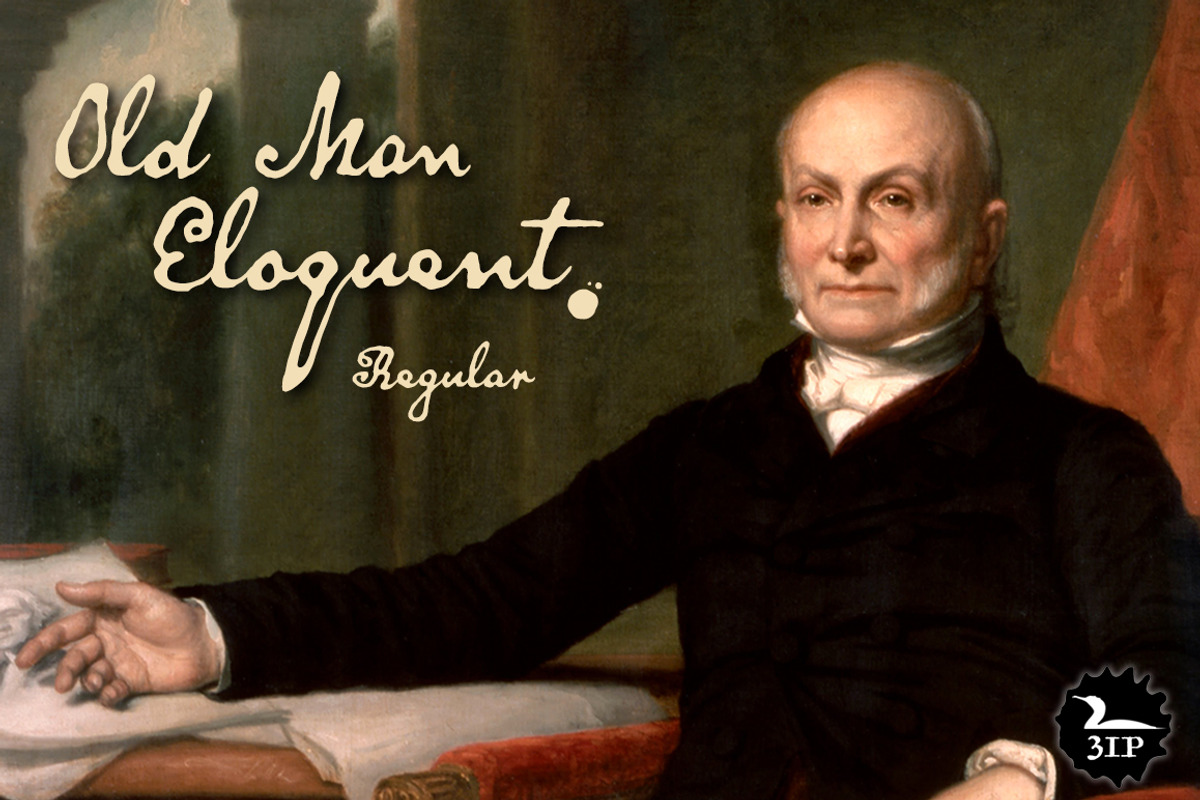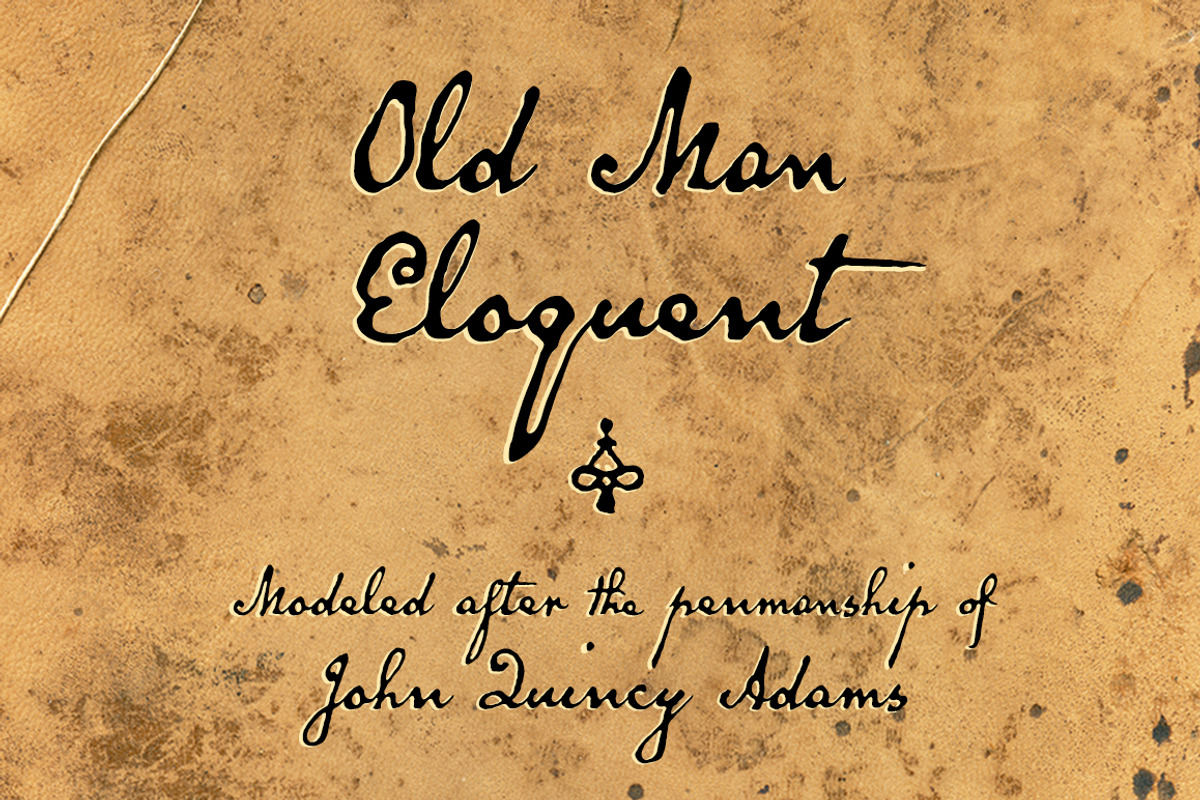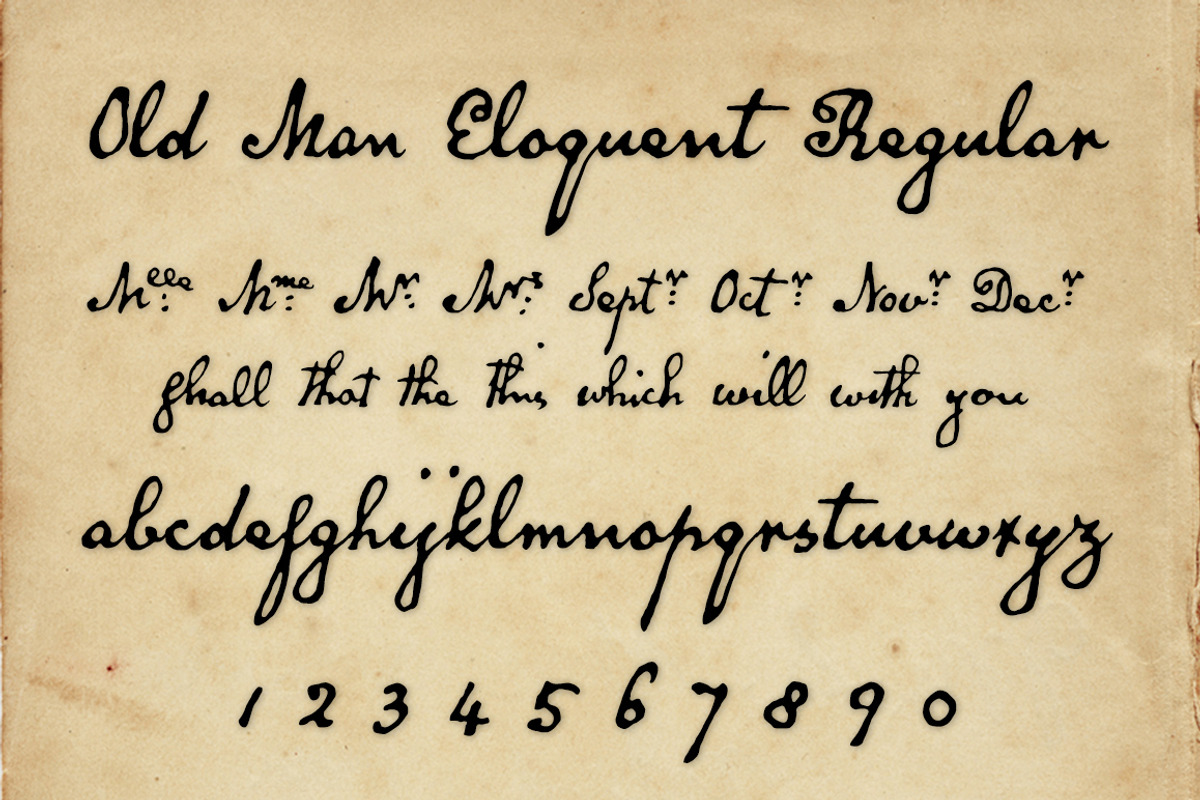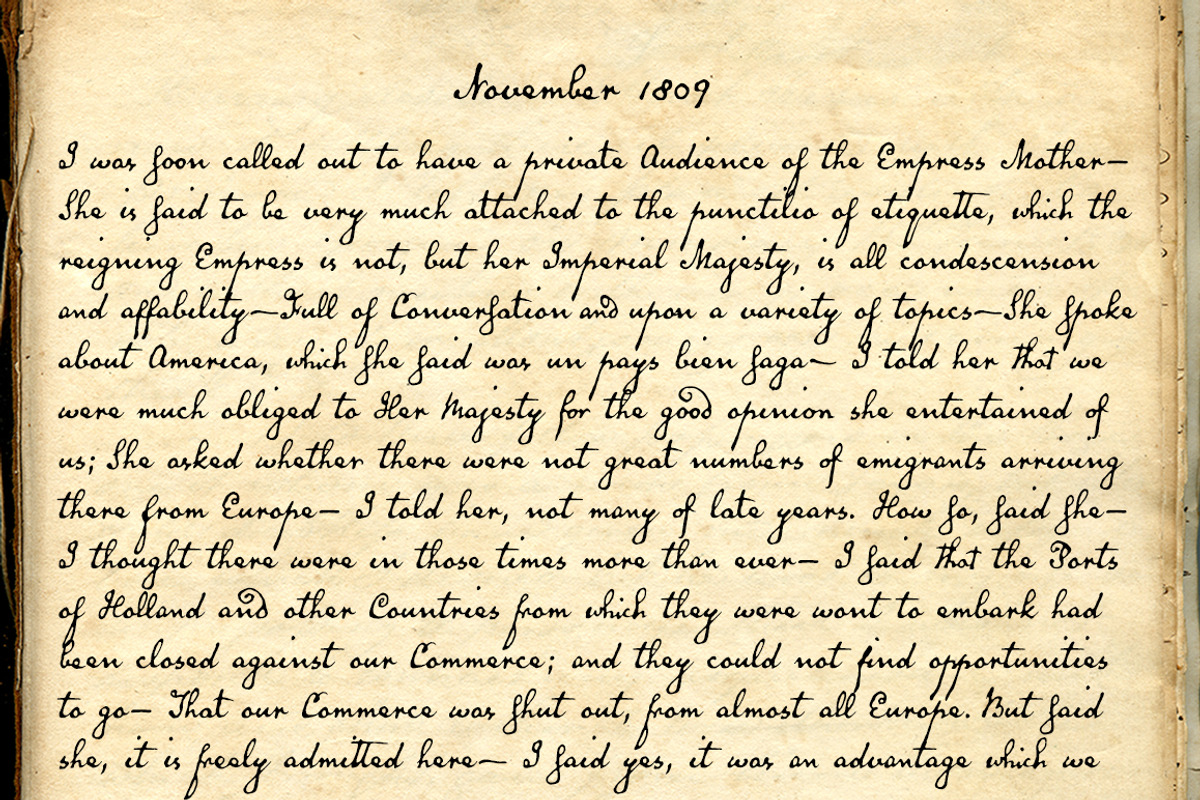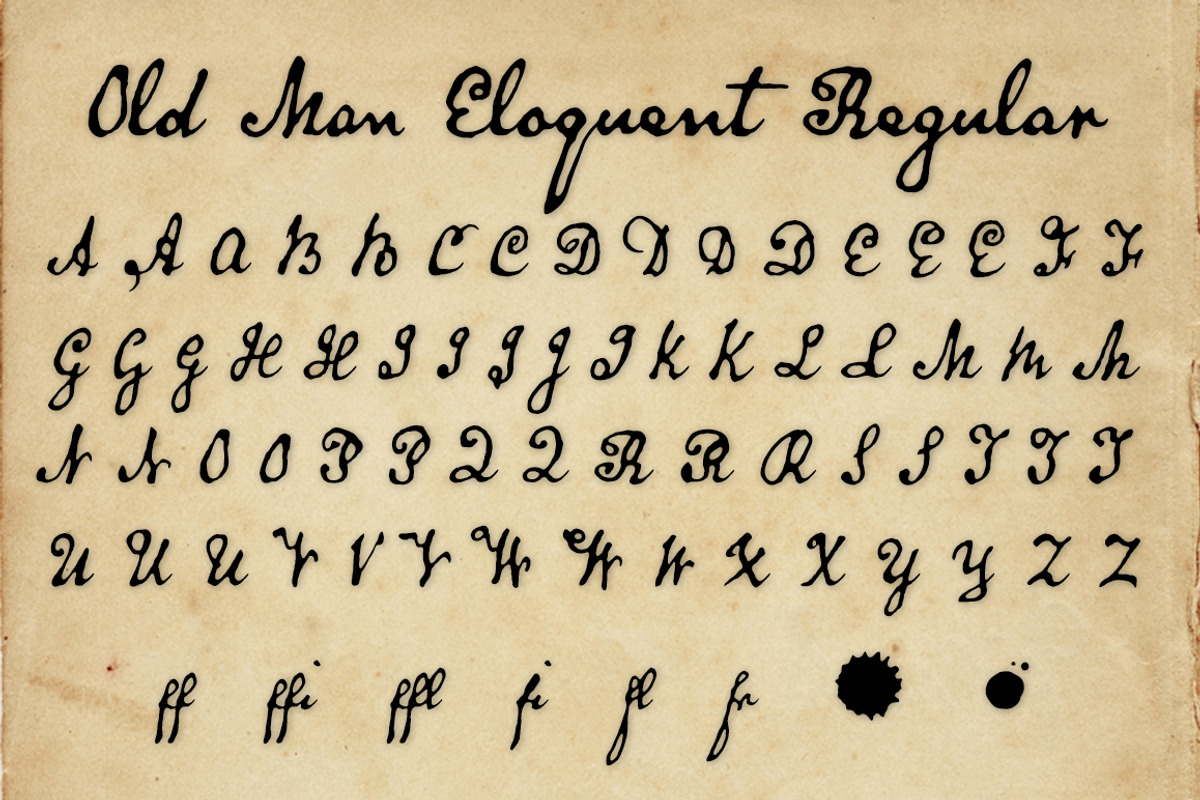
Old Man Eloquent Regular
Old Man Eloquent Regular is the standard of two weights in the Old Man Eloquent family, modeled after the penmanship of John Quincy Adams, sixth President of the United States. (Note: it was Adams's masterful speeches in Congress after his presidency that won him the moniker for which this font is named.) As source material, I reviewed pages of Adams's famous lifelong journal from about 1810, when he was Ambassador to Russia, but also consulted pages from later years. This font has nearly 800 glyphs, including alternate caps, numerous ligatures, both lining and old-style figures, an inkblot or two, and complete Central/Eastern European alphabets.